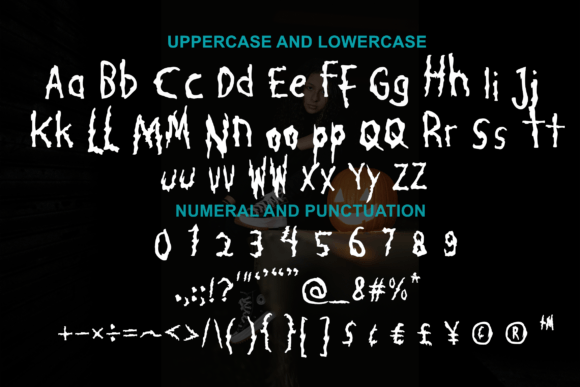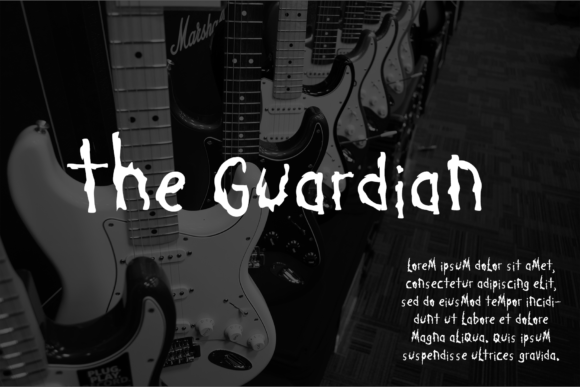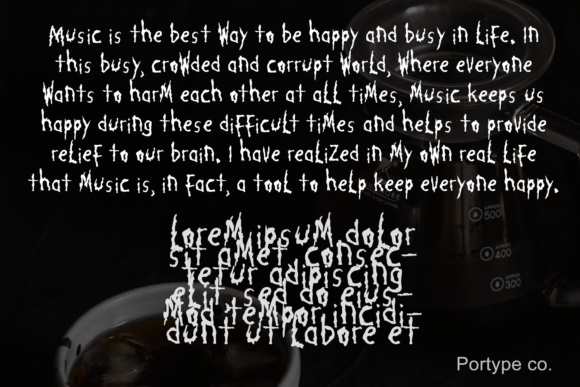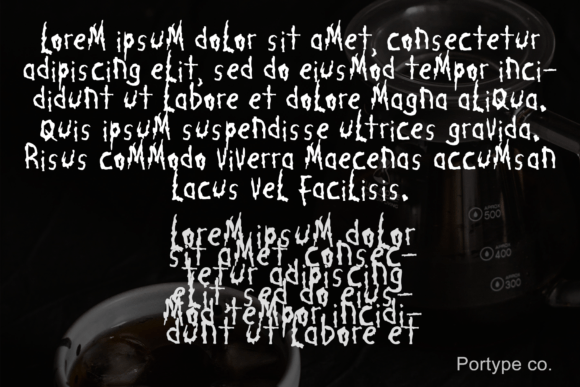
Introducing Chili Peppers Font: The Spicy Typeface for Music-Inspired Designs
Are you tired of using the same old fonts for your designs? Look no further! Chili Peppers Font is a beautiful and playful typeface that is sure to add a kick to your creations. Inspired by music waves, this font is perfect for designers and crafters who want to create eye-catching and unique designs that stand out from the crowd.
A Playful Font with a Musical Twist
Chili Peppers Font is a modern and fun font that is designed to capture the essence of music. Its playful and dynamic curves make it perfect for designs that require a lively and energetic feel. Whether you’re creating a logo, a t-shirt design, or a branding campaign, this font is sure to add a touch of personality and whimsy to your work.
Suitable for a Variety of Design Needs
Chili Peppers Font is a versatile typeface that can be used for a wide range of design needs. Here are some ideas to get you started:
- T-shirt design: Create eye-catching and unique t-shirt designs that will make your customers stand out from the crowd.
- POD (Print On Demand): Use Chili Peppers Font to create stunning designs for your print-on-demand products, such as mugs, phone cases, and tote bags.
- Branding: Add a touch of personality to your brand with this fun and playful font.
- Urban design: Use Chili Peppers Font to create bold and modern urban designs that will grab attention.
- Modern advertising design: Create eye-catching ads that will stand out from the competition.
- Book/Cover Title: Use Chili Peppers Font to create stunning book covers that will grab the attention of readers.
- Special events: Create unique and memorable designs for special events, such as concerts, festivals, and parties.
- Adventures: Use Chili Peppers Font to create designs that evoke a sense of adventure and excitement.
- Headlines: Add a touch of personality to your headlines with this fun and playful font.
- Clothing: Create stunning designs for clothing, such as t-shirts, hoodies, and hats.
Why Choose Chili Peppers Font?
So why choose Chili Peppers Font for your design needs? Here are just a few reasons:
- Unique and playful design: Chili Peppers Font is a one-of-a-kind typeface that will add a touch of personality to your designs.
- Inspired by music waves: This font is perfect for music-inspired designs, and is sure to resonate with music lovers.
- Versatile: Chili Peppers Font can be used for a wide range of design needs, from t-shirt design to branding and advertising.
- Easy to read: Despite its playful design, Chili Peppers Font is easy to read and understand.
Tips for Using Chili Peppers Font
Here are a few tips for using Chili Peppers Font in your designs:
- Use it sparingly: While Chili Peppers Font is a beautiful and playful typeface, it can be overwhelming if used too much. Use it sparingly to add a touch of personality to your designs.
- Pair it with other fonts: Chili Peppers Font pairs well with other fonts, such as sans-serif fonts. Experiment with different font combinations to create unique and interesting designs.
- Experiment with colors: Chili Peppers Font looks great in a variety of colors. Experiment with different colors and gradients to add depth and interest to your designs.
Chili Peppers Font is a beautiful and playful typeface that is perfect for designers and crafters who want to create unique and eye-catching designs. Inspired by music waves, this font is sure to add a touch of personality and whimsy to your work. With its versatile design and wide range of uses, Chili Peppers Font is a great addition to any designer’s toolkit.